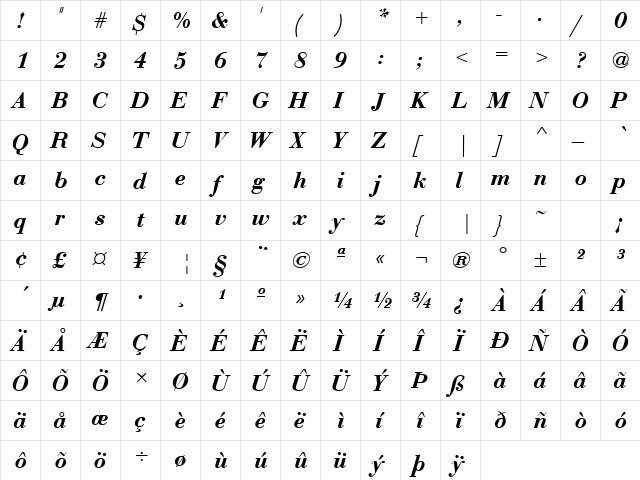
Bodoni-DTC Bold Italic Font Preview
Design Context for Bodoni-DTC Typeface
Bodoni-DTC offers clean, dependable letterforms without strong stylistic allegiance, making it a practical choice for designers who need flexibility. Its italic angle brings a sense of urgency and motion to the letterforms. The heavy weight commands attention and anchors typographic hierarchies.
Pro Tip: Try Bodoni-DTC for annotation and caption copy alongside an upright companion — the contrast in angle creates a dynamic but ordered typographic system.